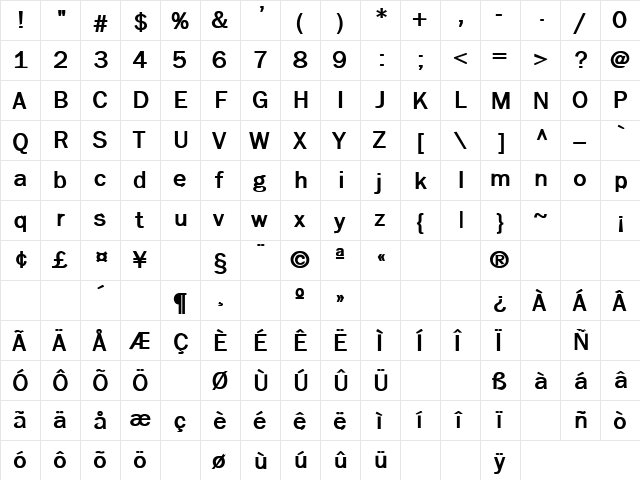
Breakdown 4 Bold
Design Context for Breakdown 4 Typeface
Breakdown 4 offers clean, dependable letterforms without strong stylistic allegiance, making it a practical choice for designers who need flexibility. The heavy weight commands attention and anchors typographic hierarchies.
Pro Tip: Pair Breakdown 4 with a font of contrasting weight or personality to build a more expressive typographic hierarchy.